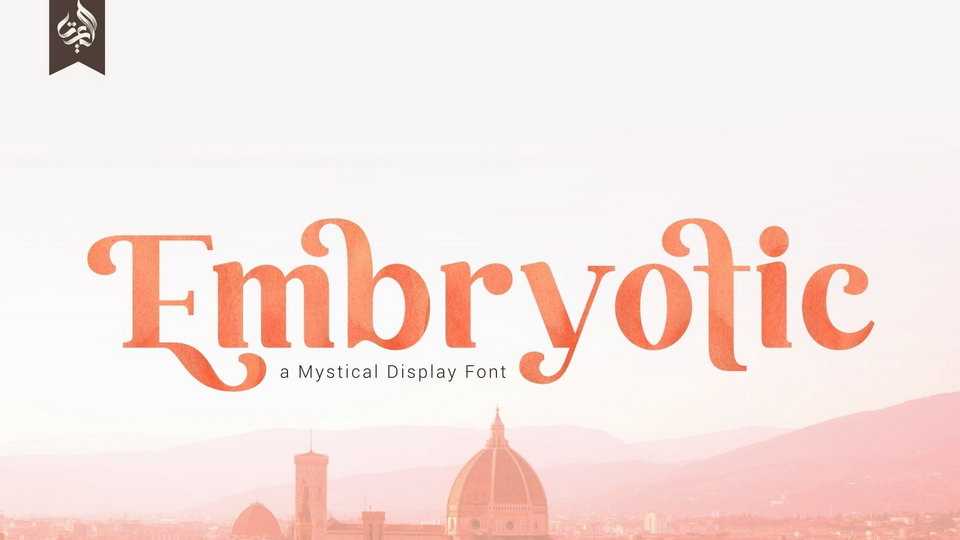
Download Embryotic font, a mystical display typeface. This font was carefully crafted and inspired by world top fashion brand. In general, Embryotic creates a luxurious and elegant look in design.